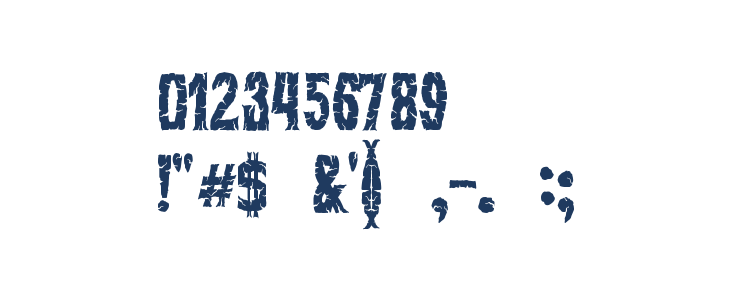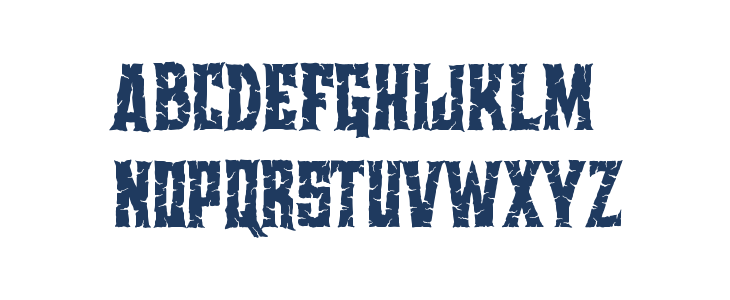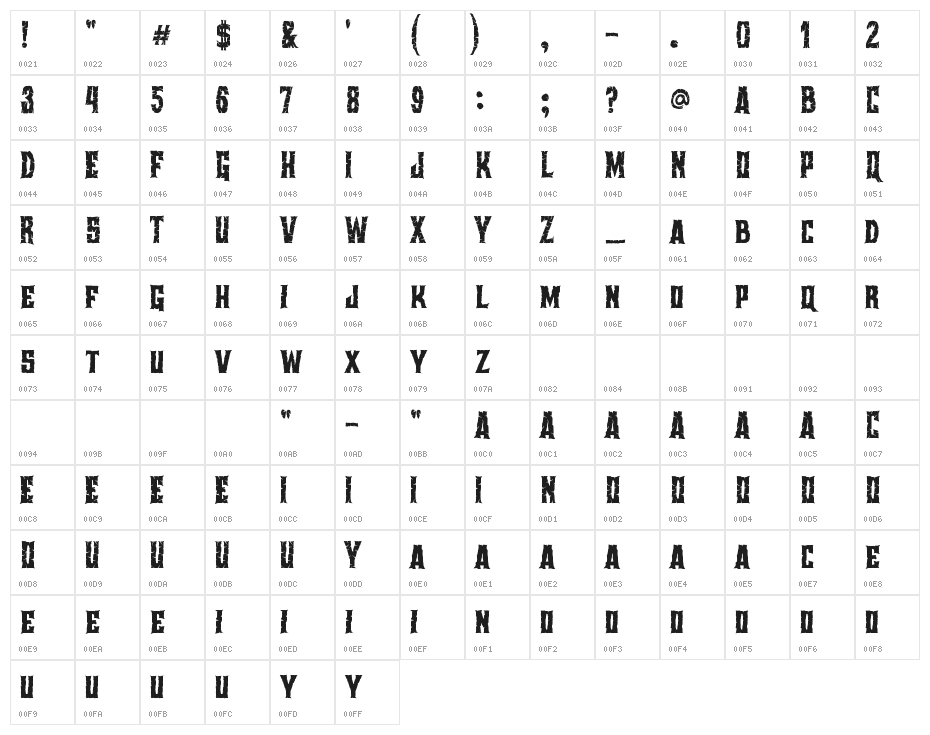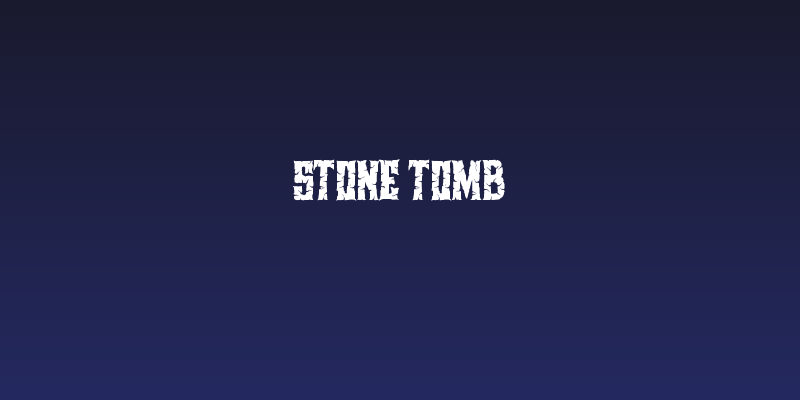
Stone Tomb Font
Stone Tomb Description
A bold, jagged, and distressed display font with rough, irregular edges, evoking a stone or cracked texture. All characters are uppercase, with a heavy, blocky appearance and high visual impact.
| Overall Style | Decorative, Grunge, Horror |
| Use Case | Headlines, Posters, Logos |
| Proposed Projects | Horror posters, Halloween events, rock band logos, video game titles, themed party invitations. |